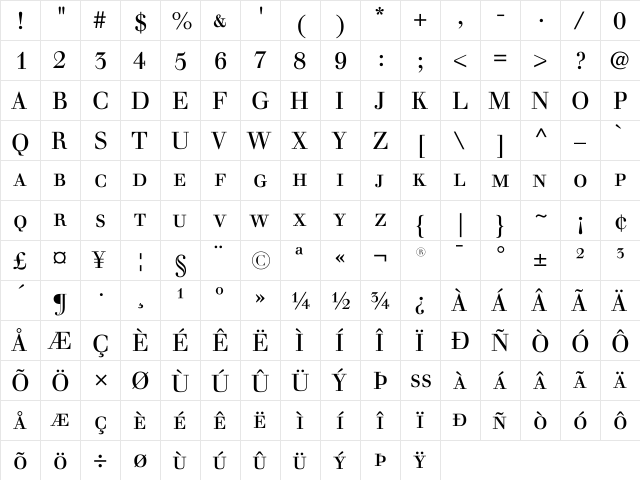
Justus Versalitas
Design Context for Justus Typeface
Justus is a composed and adaptable typeface that performs quietly and consistently across a wide range of design contexts.